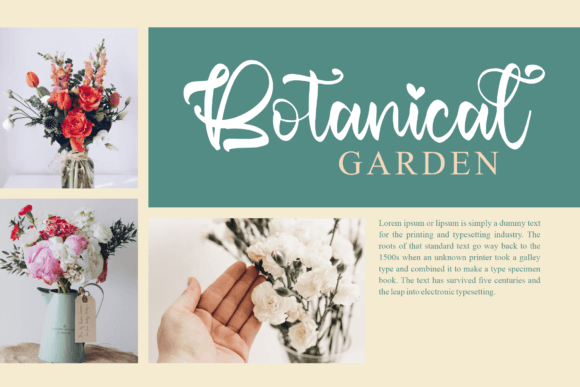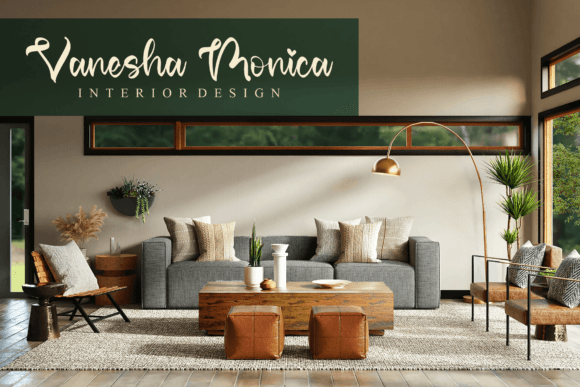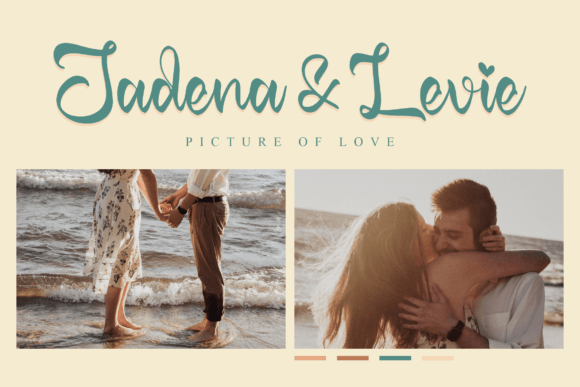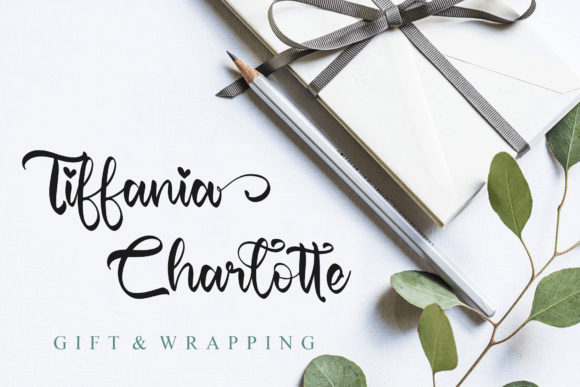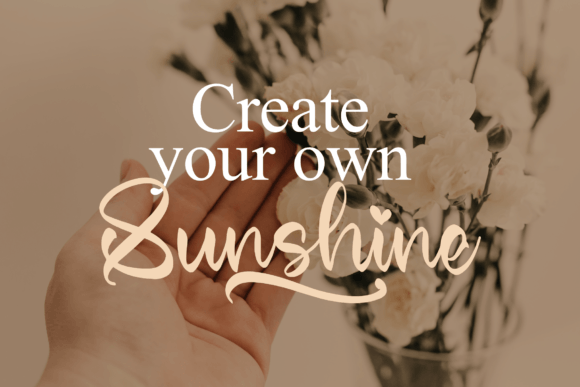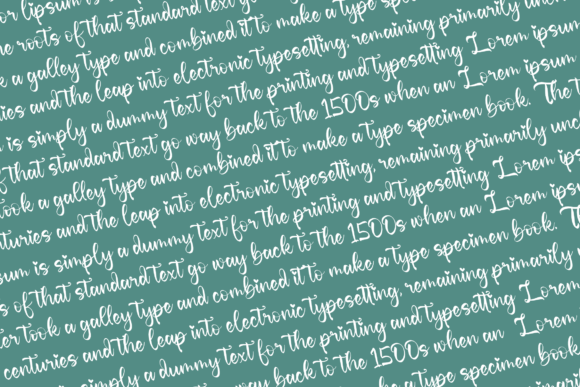
Introduction to Rinhila Font
Rinhila is a neat and beautiful handwritten font described by an elegant touch, perfect for your favorite projects.
Fall in love with its incredibly distinct and timeless style, and use it to create spectacular designs .